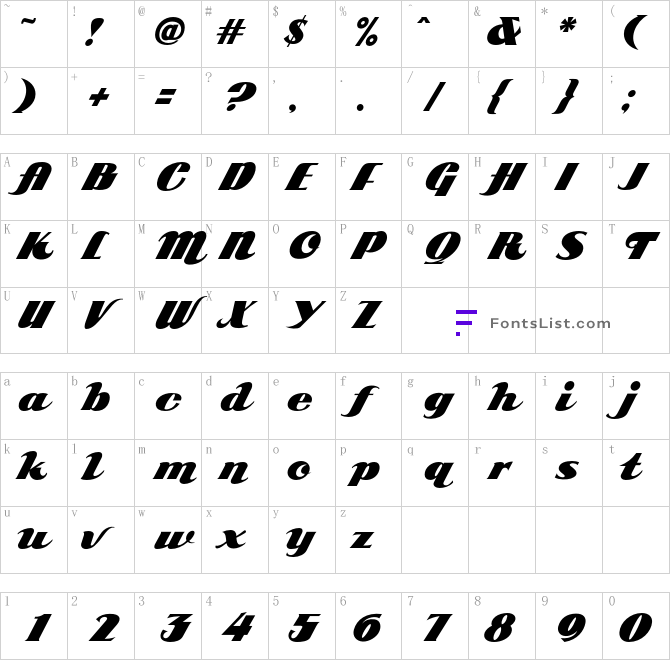
- Font Name:ARB 85 Poster Script JAN-39
ARB-85-Poster-Script-JAN-39-Normal-copy-1.ttf is a very beautiful artistic font, ARB-85-Poster-Script-JAN-39-Normal-copy-1.ttf is widely used in the design and printing of various books and pictures,ARB-85-Poster-Script-JAN-39-Normal-copy-1.ttf has a strong visual impact,ARB-85-Poster-Script-JAN-39-Normal-copy-1.ttf is a commonly used font in newspapers, magazines and books, and is used in posters, e-commerce Poster design, store design, logo design, font design and other fields.ARB-85-Poster-Script-JAN-39-Normal-copy-1.